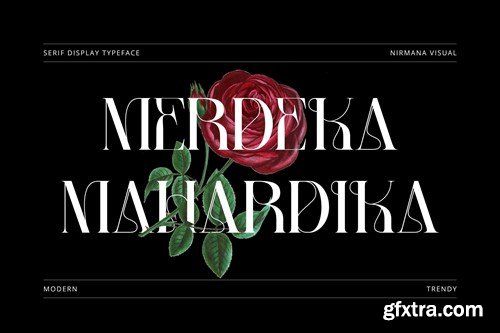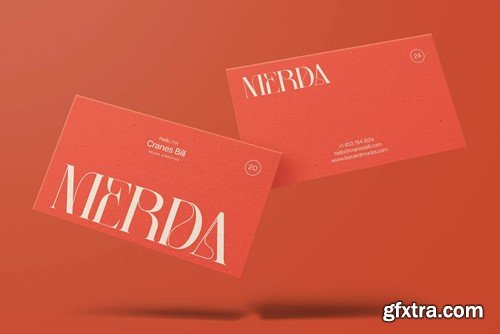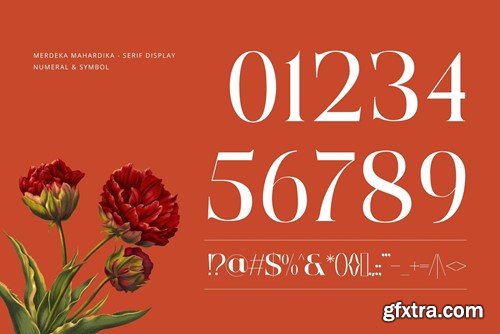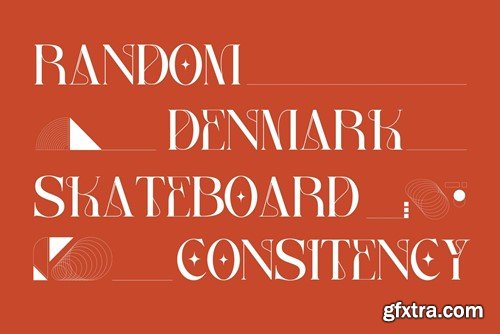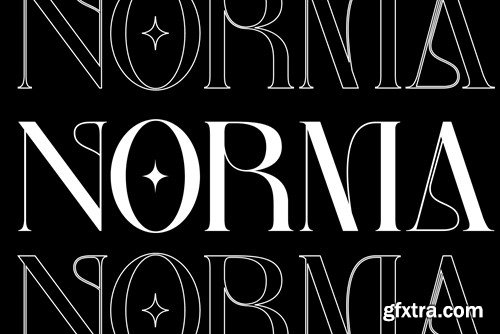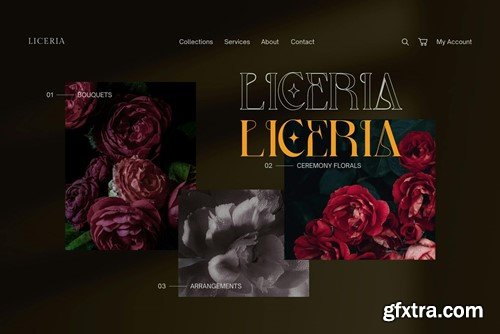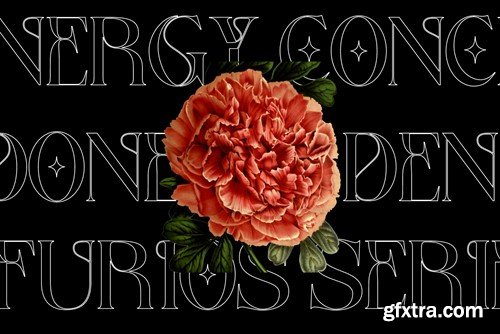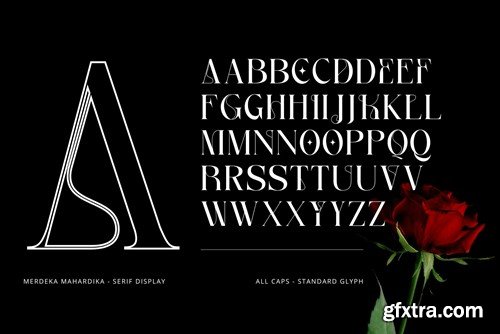
Merdeka Mahardika - Logo Font
Merdeka Mahardika - Logo Font Merdeka Mahardika Display offers beautiful typographic harmony for a diversity of design projects, including logos & branding, social media posts, advertisements & product designs. What you get : Happy Creating!